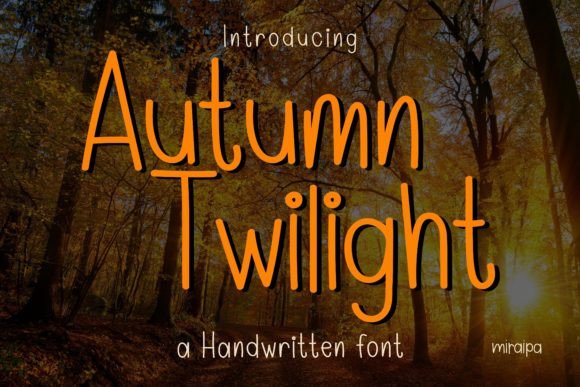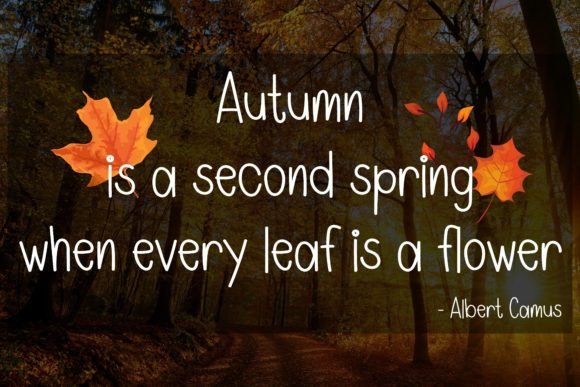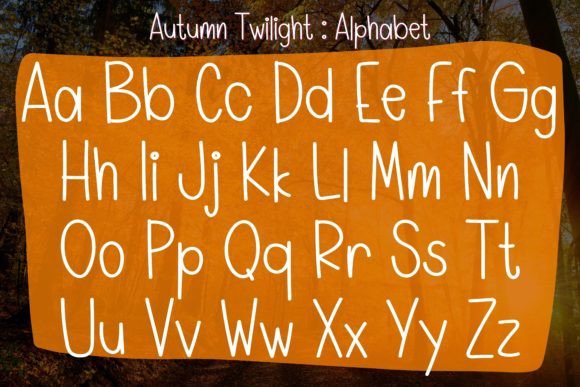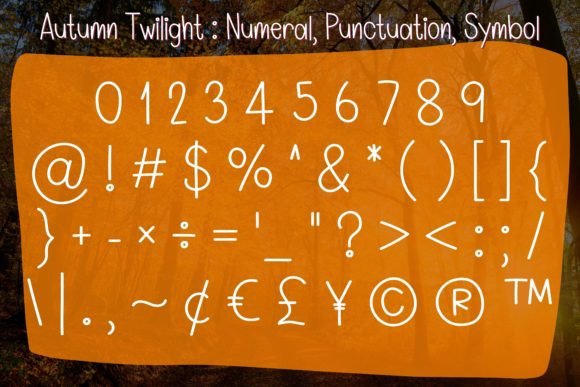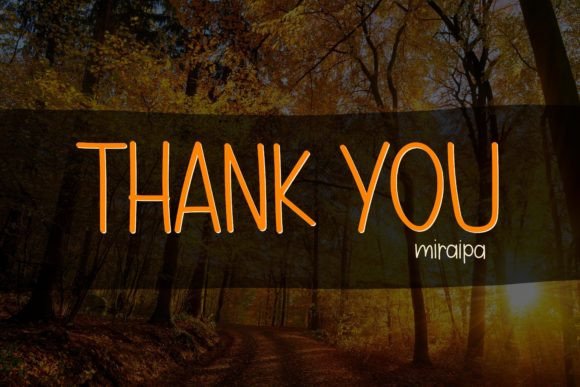
**Autumn Twilight: Playful Handwritten Font for Friendly and Lovely Designs**
Step into the world of charm and playfulness with Autumn Twilight, a handwritten font designed in a friendly and lovely style. This font is not just a typeface; it’s an invitation to infuse warmth and friendliness into your creative projects. Perfect for diaries, planners, journals, and a wide range of designs, Autumn Twilight brings a delightful touch to back-to-school projects, party decorations, invitations, festival materials, posters, blogs, clothing designs, child-related projects, greeting cards, social media posts, and anything that craves a friendly and playful ambiance. Add Autumn Twilight to your fonts library, and watch as it brings life to your DIY projects.
**Playful and Lovely Aesthetic:**
Autumn Twilight captures the essence of playfulness and loveliness in its design. The handwritten strokes convey a sense of friendliness, making it an ideal choice for projects that require a warm and inviting touch. Each character is crafted with care, adding a personal and delightful aesthetic to your designs.
**Versatile Usage for Various Projects:**
The versatility of Autumn Twilight shines through its suitability for a wide range of projects. Whether you’re creating back-to-school materials, party invitations, festival decorations, or clothing designs, this font adapts seamlessly to different contexts. It becomes a versatile tool that adds a friendly and welcoming vibe to your creative endeavors.
**Perfect for Child-Related Designs:**
Autumn Twilight is particularly well-suited for child-related designs. From children’s party invitations to clothing designs and greeting cards, the font becomes a playful element that resonates with the joy and innocence of childhood. It’s a font that brings smiles and warmth to any project.
**Enhancing DIY Projects:**
Add Autumn Twilight to your fonts library, and it becomes the secret ingredient that brings your DIY projects to life. Whether you’re working on posters, blogs, or social media posts, the font infuses a friendly touch that resonates with your audience. It’s an easy way to elevate the visual appeal of your creative endeavors.
**Conclusion: Bring Warmth to Your Designs with Autumn Twilight**
In conclusion, Autumn Twilight is more than just a font; it’s a source of warmth and friendliness for your designs. With its playful and lovely aesthetic, this handwritten font becomes a valuable asset for various projects. Whether you’re creating for children or infusing a friendly touch into your DIY endeavors, let Autumn Twilight be the font that brings joy and charm to your creative work.